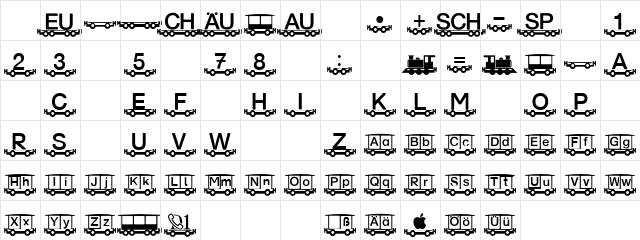
Eisenbahn Regular
Design Context for Eisenbahn Typeface
Eisenbahn is a composed and adaptable typeface that performs quietly and consistently across a wide range of design contexts.